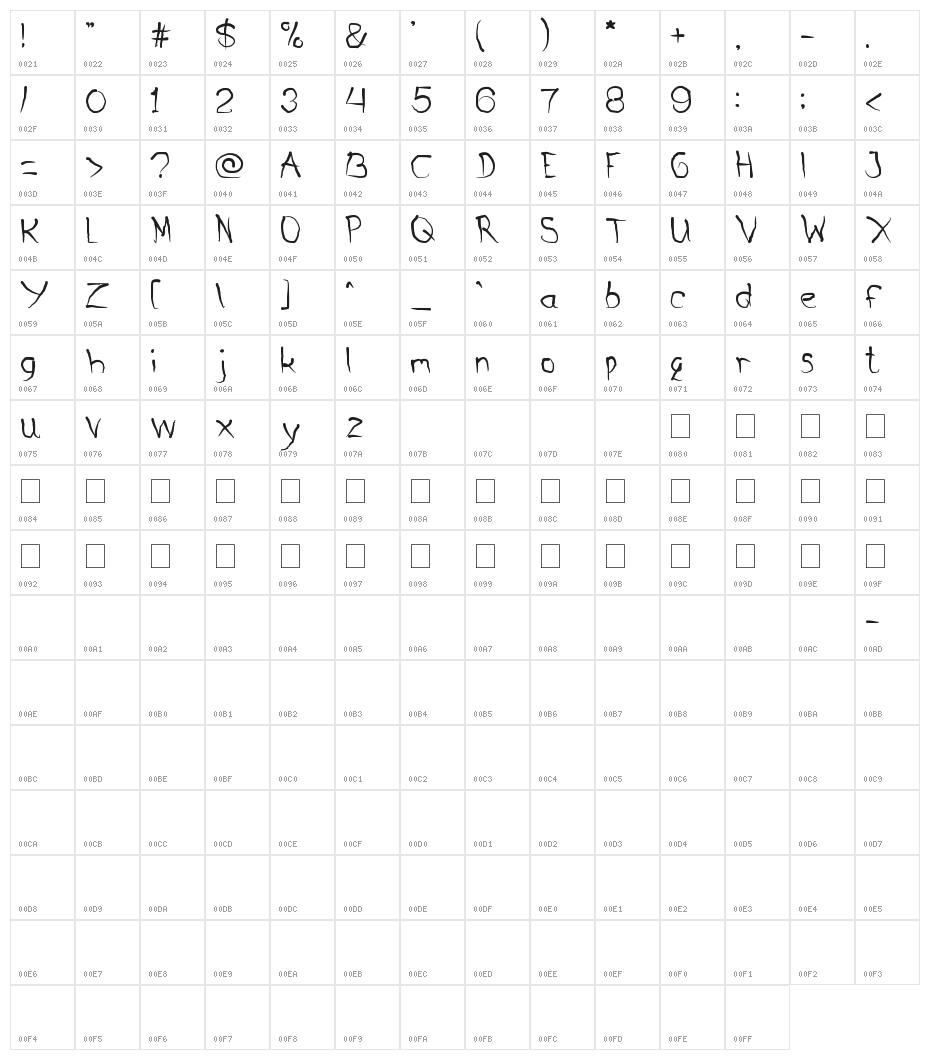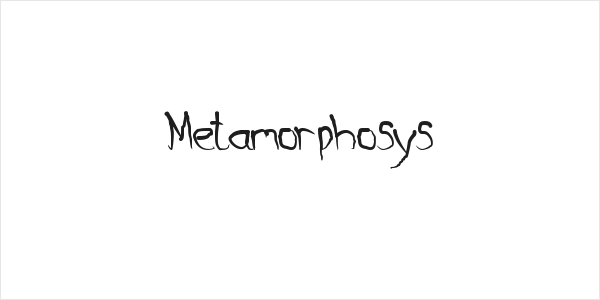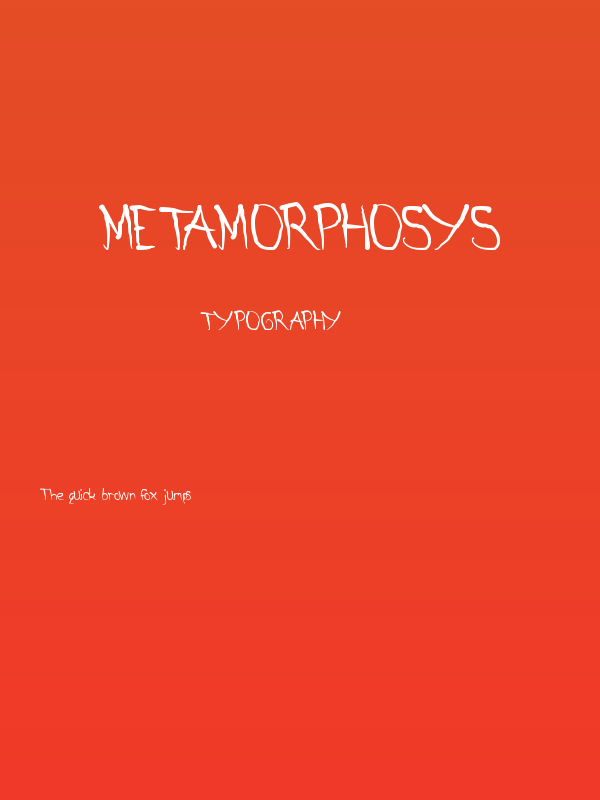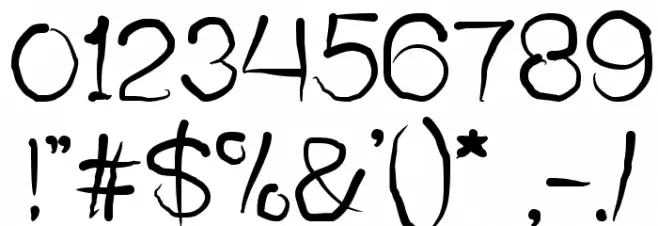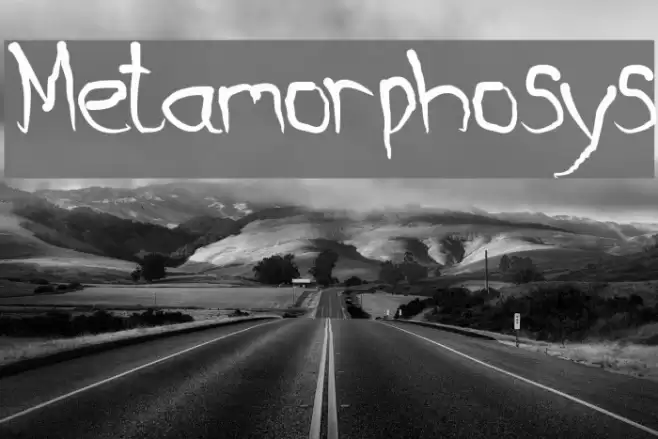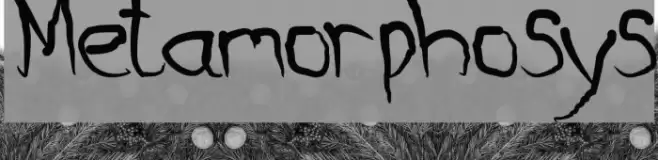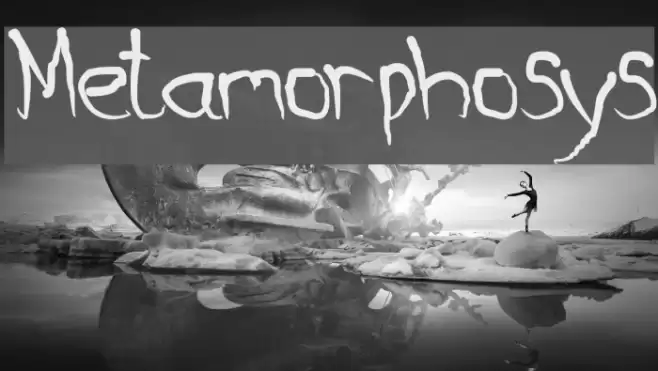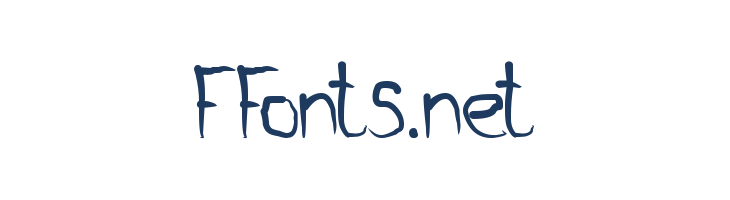
Metamorphosys Font
Metamorphosys Description
This font features a unique and artistic design with a hand-drawn appearance. The characters are irregular and have a slightly distorted look, giving them a whimsical and playful feel. The strokes vary in thickness, adding to the organic and dynamic nature of the font. The uppercase and lowercase letters maintain a consistent style, while the numbers and special characters complement the overall aesthetic. This font is ideal for projects that require a creative and unconventional touch.
| Overall Style | Artistic, Whimsical |
| Use Case | Headlines, Logos, Artistic projects |
| Proposed Projects | Ideal for creative projects such as posters, album covers, children's books, and artistic branding. |